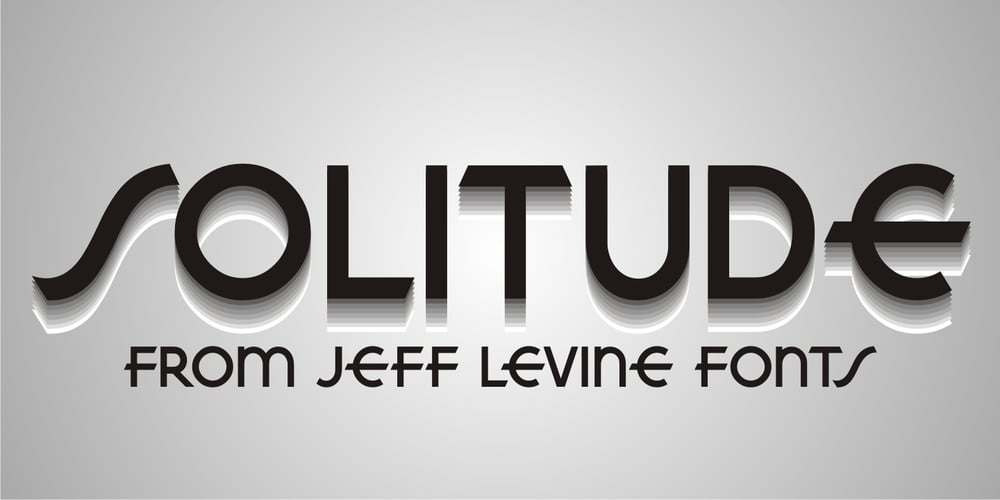
Solitude JNL
Solitude JNL font
Solitude JNL Font Family was designed by Jeff Levine and published by Jeff Levine. Solitude JNL contains 1 styles and family package options. A piece of vintage sheet music with the hand lettered title “Solitude” is the namesake and inspiration for Solitude JNL. Purely Art Deco in its typographic curves and angles of the period, this typeface typifies the “Streamline” style that permeated designs of the 30s and 40s.